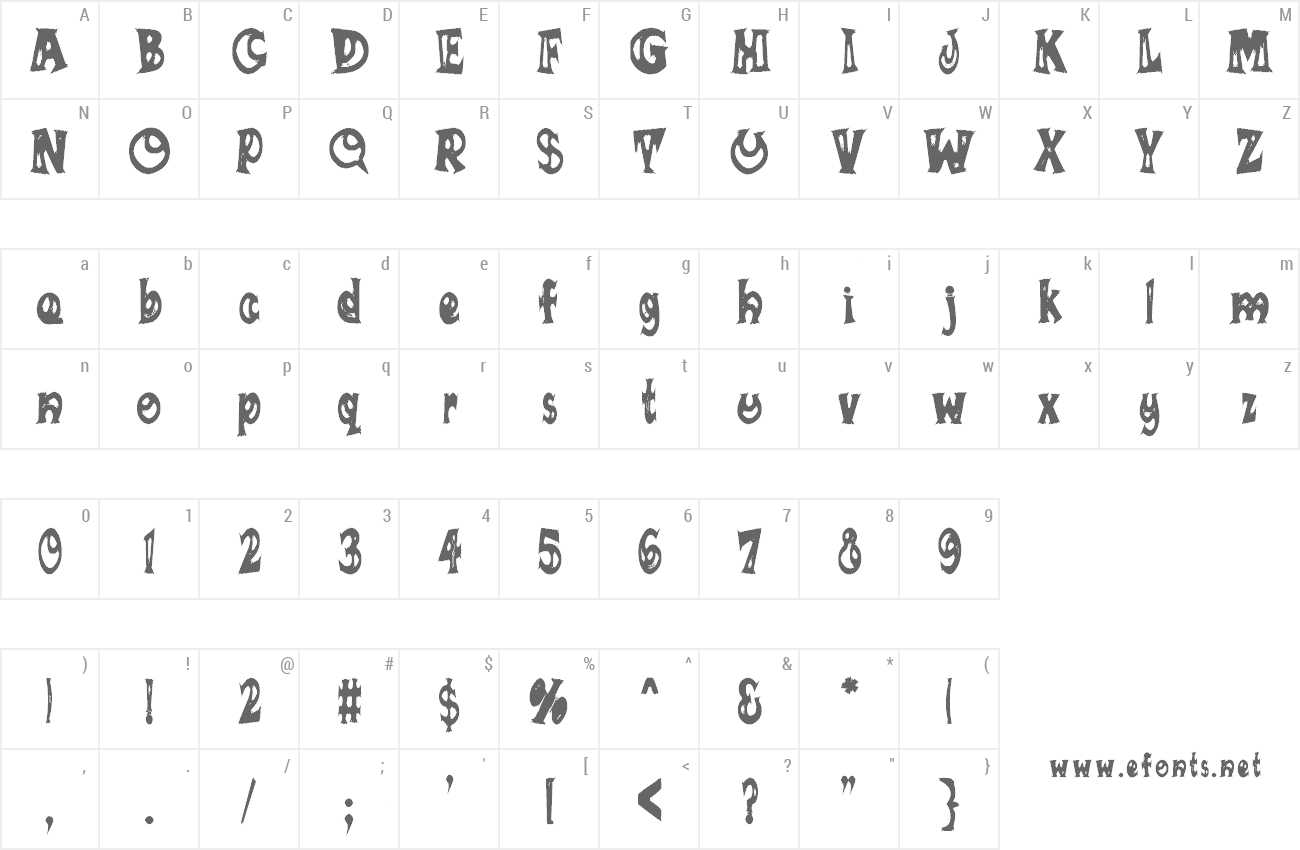
| Font name: | Sumananki |
| Author: | Amit Kumar |
| Note by Amit Kumar | |
| this is the font designed by amit for his best friend.the name "sumananki is derived from her two names suman+ankita. she wants her name to be famous so this font had been created just on her name. |